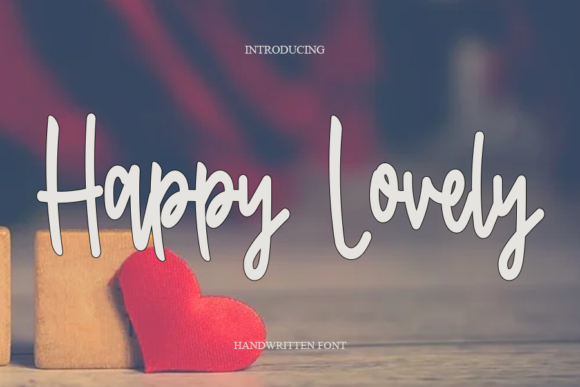
Discovering Your New Favorite Font
Have you ever found yourself scrolling through your design files, searching for the perfect font to match the mood of your latest project? We’ve all been there, right? The frustration of trying out font after font, only to settle for something that’s just ‘fine.’ But what if I told you there’s a font that can change all that?
Meet Happy Lovely Font, a chic, modern, and simple lettered handwritten font that’s perfect for a wide variety of designs. Whether you’re working on a personal project or a client’s brief, this font is sure to bring a touch of elegance and sophistication to your work. And the best part? It’s so versatile that you can use it for anything from wedding invitations to social media graphics.
As a designer, you know how valuable it is to have a go-to font that can elevate your designs and make them truly stand out. Happy Lovely Font is that font, and we can’t wait for you to try it out!
Happy Lovely Font Key Features
- Font Family: Happy Lovely Font offers a unique and playful font family with 6 different font styles, including Happy, Lovely, Sweet, Joyful, Delight, and Cheerful.
- Unique Characteristics: The Happy Lovely Font features a hand-drawn, cursive design with a mix of rounded and pointed letters, creating a whimsical and childlike feel.
Designer Review: Happy Lovely Font
At first glance, Happy Lovely Font seems like a perfect addition to any design project. The font’s playful, cursive style is sure to add a touch of whimsy and charm to any text. ✨ I particularly love the way the font’s curves and flourishes make it feel like a handwritten script. ✨
- Wide range of stylistic variations to suit different design needs
- Excellent for creating eye-catching headlines and titles
- Font weights and sizes are easy to adjust for a polished look
However, as I dug deeper into the font, I started to notice a few limitations. ⚠️ The font’s thin strokes can sometimes make it difficult to read, especially in smaller sizes or when used on a light background. Additionally, the font’s playful style can feel overwhelming if used extensively throughout a design. ⚠️
Overall, Happy Lovely Font is a great addition to any designer’s toolkit, but it’s not a one-size-fits-all solution. Use it sparingly to add a touch of personality to your designs, and be mindful of the potential limitations. With a little creativity and restraint, Happy Lovely Font can be a real showstopper.
Getting the Most Out of Happy Lovely Font
To get the most out of Happy Lovely Font, use it for:
– Children’s book illustrations and design
– Any design project that requires a playful and whimsical touch
Happy Lovely Font is commonly used for:
– Creating eye-catching social media posts
– Designing wedding invitations and stationery
– Illustrating children’s books and educational materials
– Adding a playful touch to branding and marketing materials